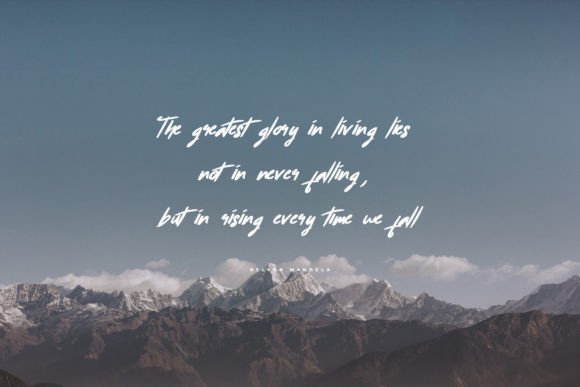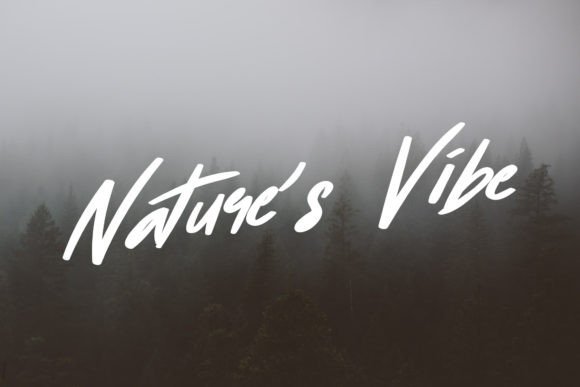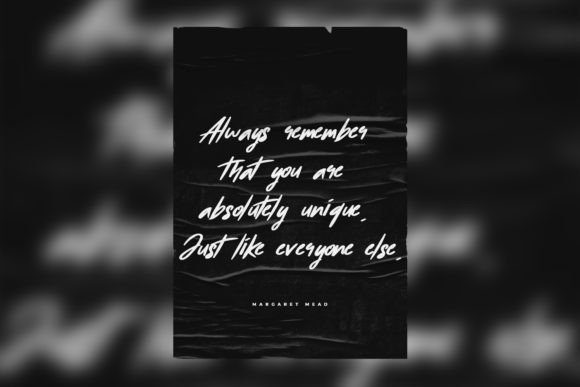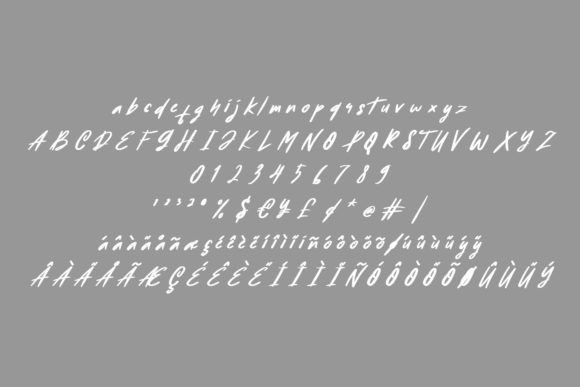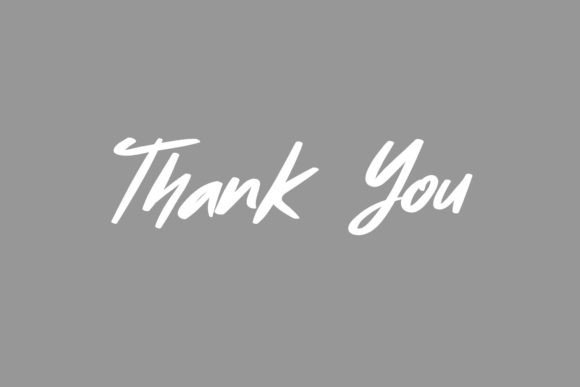
Introducing Amazed Font: The Energetic and Moving Handwritten Brush Font
Are you tired of using the same old fonts in your designs? Do you want to add a touch of energy and movement to your crafts, social media posts, and advertisements? Look no further than Amazed Font, a handwritten brush font that is sure to take your designs to the next level.
What is Amazed Font?
Amazed Font is a unique and creative handwritten font that features a brush-like style, giving it a dynamic and expressive feel. The font has an energetic and moving impression, making it perfect for designs that require a bit of flair and personality. Whether you’re a designer, crafter, or simply someone who loves to create, Amazed Font is a versatile and fun font that can be used for a wide range of projects.
What can I use Amazed Font for?
The possibilities are endless with Amazed Font! This amazing font is suitable for various design needs, including:
- Crafts: Add a personal touch to your handmade crafts, such as cards, invitations, and gift tags.
- T-shirt designs: Create eye-catching and unique designs for your t-shirts, hoodies, and other apparel.
- Social media: Use Amazed Font to create engaging and shareable social media posts, stories, and graphics.
- Typography: Experiment with Amazed Font in your typography projects, such as quotes, posters, and banners.
- Posters: Create stunning posters for events, promotions, and advertisements.
- Advertisements: Use Amazed Font to add a creative and attention-grabbing touch to your ads.
Why choose Amazed Font?
So, what sets Amazed Font apart from other fonts? Here are just a few reasons why designers and crafters love this amazing font:
- Unique and creative: Amazed Font has a distinctive and original style that will make your designs stand out.
- Energetic and moving: The brush-like style of Amazed Font gives it a dynamic and expressive feel that’s perfect for designs that require energy and movement.
- Versatile: Amazed Font can be used for a wide range of projects, from crafts and social media posts to posters and advertisements.
Tips for using Amazed Font
Here are a few tips for getting the most out of Amazed Font:
- Experiment with colors: Amazed Font looks great in a variety of colors, so don’t be afraid to experiment and find the perfect hue for your design.
- Play with textures: The brush-like style of Amazed Font lends itself well to textures and patterns, so try adding a bit of texture to your design.
- Mix and match: Amazed Font pairs well with other fonts, so try mixing and matching it with different fonts to create a unique look.
Amazed Font is a unique and creative handwritten brush font that’s perfect for designers and crafters who want to add a touch of energy and movement to their designs. With its versatile style and ease of use, Amazed Font is sure to become a favorite in your design arsenal. So why wait? Download Amazed Font today and start creating amazing designs that will leave your audience amazed!